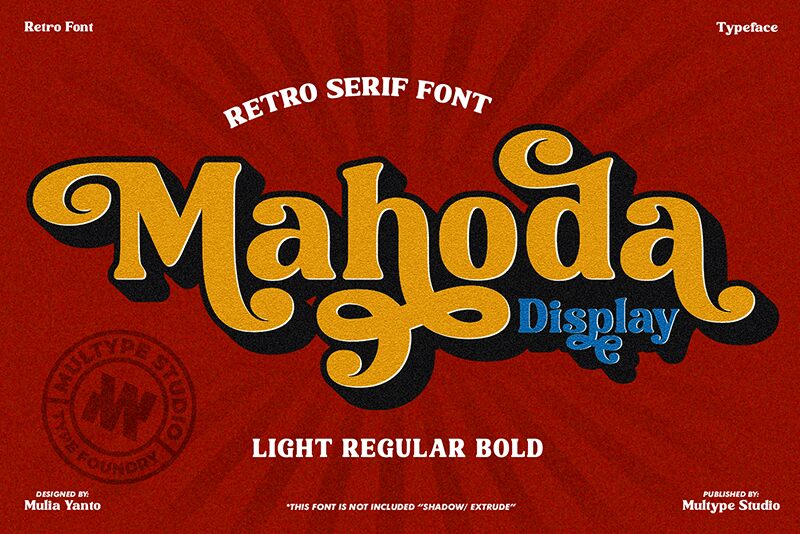
Mahoda Display by Multype Studio is a bold display font that exudes a retro charm with its striking serif details. Its robust weight and vintage flair make it an eye-catching choice for any design that seeks to capture attention with a nostalgic twist.
The thick, confident strokes and elegant curves of Mahoda Display lend it an unmistakable presence, perfect for headlines, posters, and branding projects that demand a touch of classic sophistication. Whether you’re aiming to evoke the past or simply add character to your work, Mahoda Display stands out as a versatile option in the designer’s toolkit.